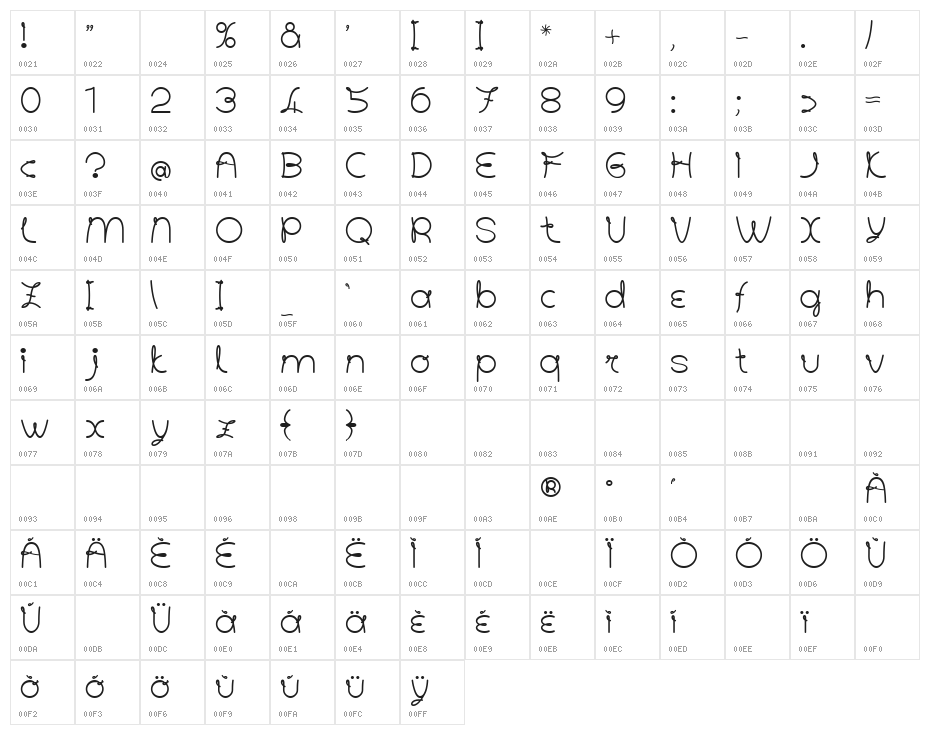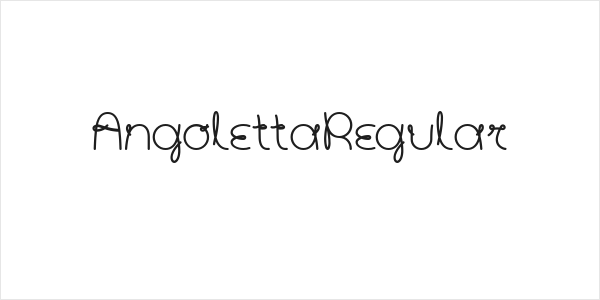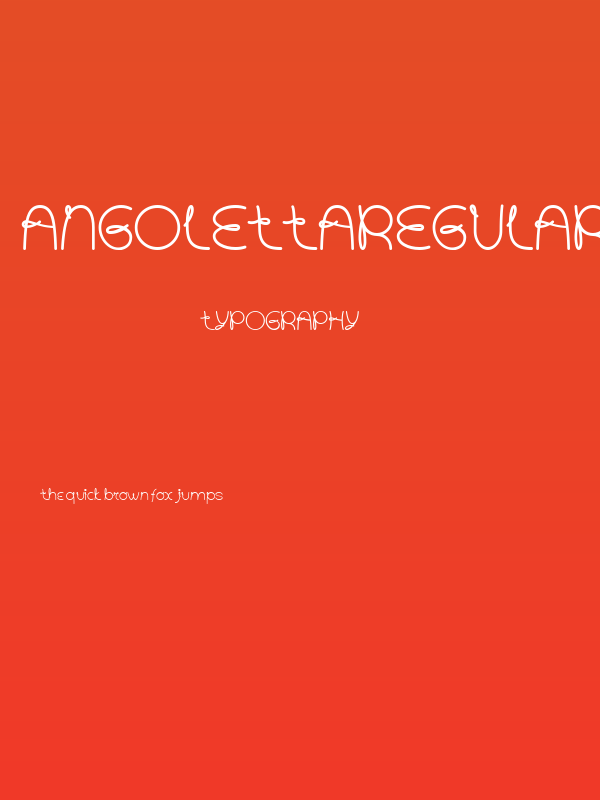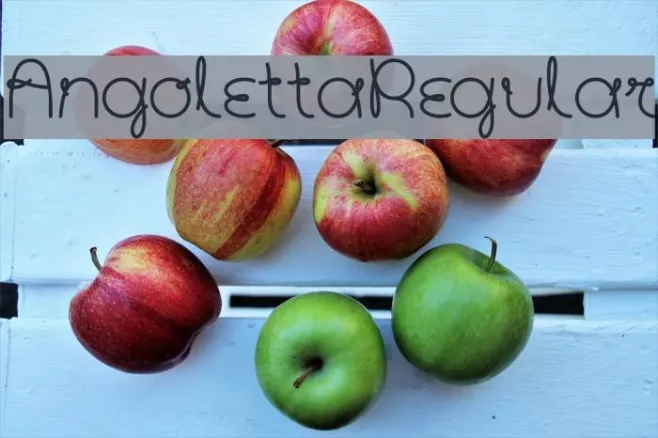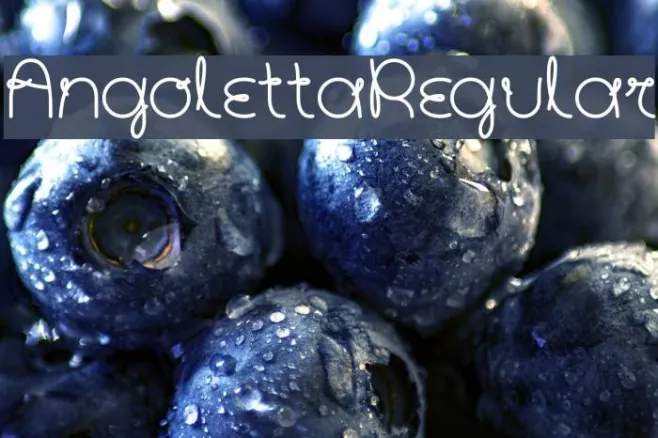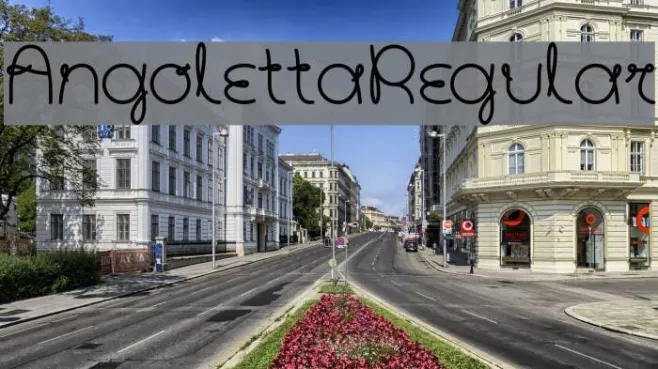
AngolettaRegular Font
AngolettaRegular Description
This font features a playful and whimsical design with rounded, flowing characters that exhibit a hand-drawn quality. The letters have a consistent stroke width, contributing to a uniform appearance, while the slight curls and loops add a touch of charm and creativity. The uppercase and lowercase letters maintain a cohesive style, with the lowercase letters slightly smaller and more compact. Numbers and special characters follow the same playful aesthetic, making the font suitable for projects that require a friendly and approachable look.
| Proposed Projects | Ideal for children's books, greeting cards, playful branding, and creative posters. |